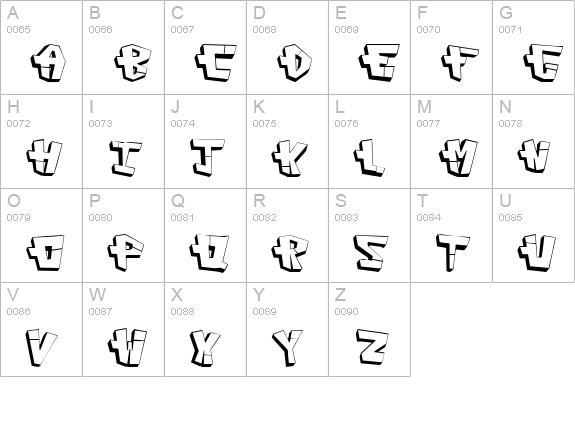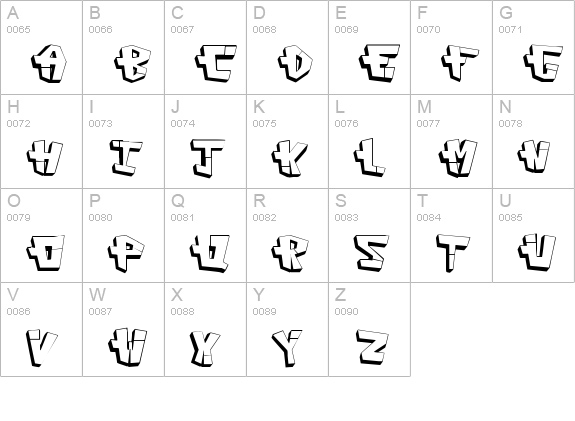
CAPconstruct Font Details
Introducing CAPconstruct font, a versatile and stylish typeface designed to bring a modern touch to your designs. With its clean lines and contemporary aesthetic, this font is perfect for a wide range of projects, from branding and advertising to social media graphics and web design. CAPconstruct font is not only visually appealing but also incredibly easy to read, making it a great choice for both display and body text. Its bold and unique letterforms will make your text stand out and capture the attention of your audience. The best part? CAPconstruct font is available for free download at FontsMarket.com, so you can start using it in your projects right away. Don't miss out on this fantastic opportunity to elevate your designs with this sleek and sophisticated typeface.